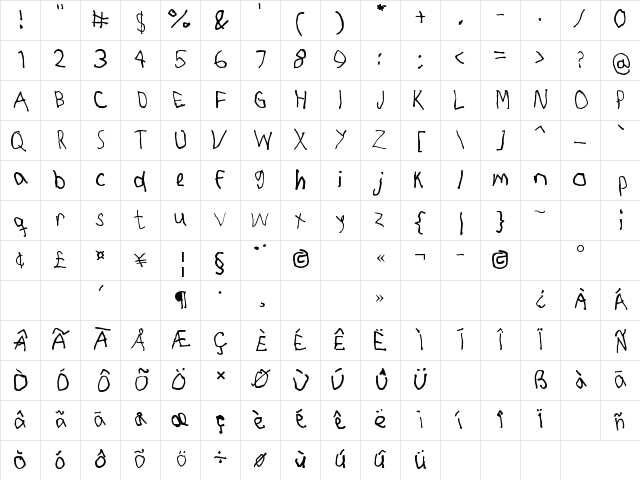
RightyUsesLeftHand Regular Free Font
RightyUsesLeftHand Regular
Design Context for RightyUsesLeftHand
RightyUsesLeftHand flows with the natural rhythm of handwritten lettering, making it ideal for designs that call for warmth and personal expression.
Font Pairing: Combine RightyUsesLeftHand with a simple geometric sans for maximum contrast - the tension between flowing curves and clean structure is a classic typographic pairing.
Pro Tip: Use RightyUsesLeftHand for short runs of text - names, titles, or taglines. Extended body copy in script faces tires the eye quickly.